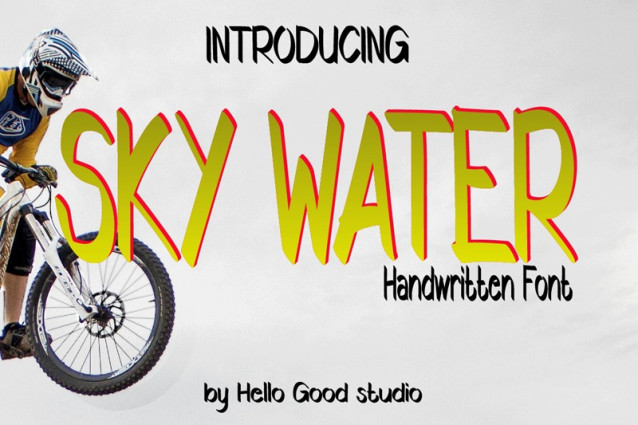
Sky Water Font, perfectly fit for branding, logo, wedding things, greeting cards, fashion, lookbook, marketing promotion, anytime you want to look fancy elegant but still casual.
| Designer Name: | Studio Hello Good |
| Classification: | Brush Fonts, Playful / Fun Fonts |